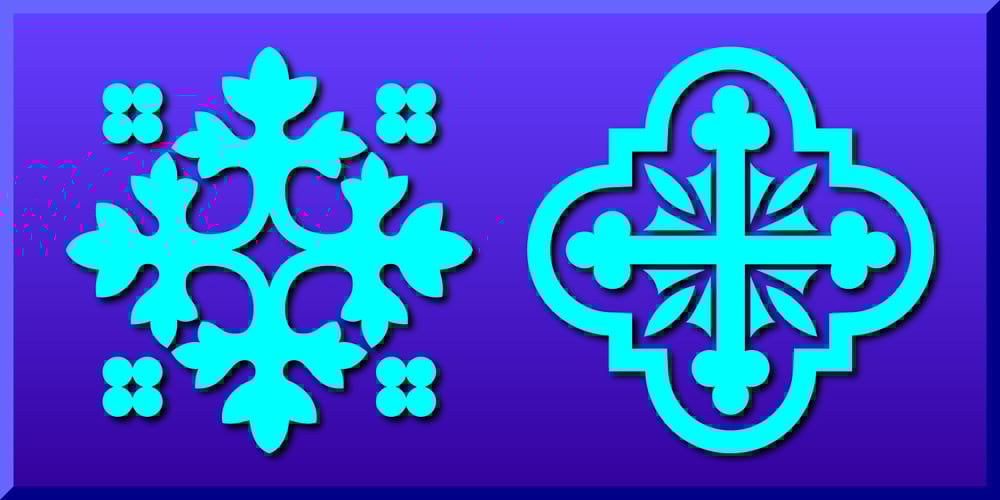
Holy Ornaments Font Family was designed by Gerald Gallo and published by Gerald Gallo. Holy Ornaments contains 1 styles and family package options. Holy Ornaments was inspired by the religious motifs used to embellish altar cloths, crosses, and church vestments in the Middle Ages. There is an assortment of 47 ornaments located under the character set keys.